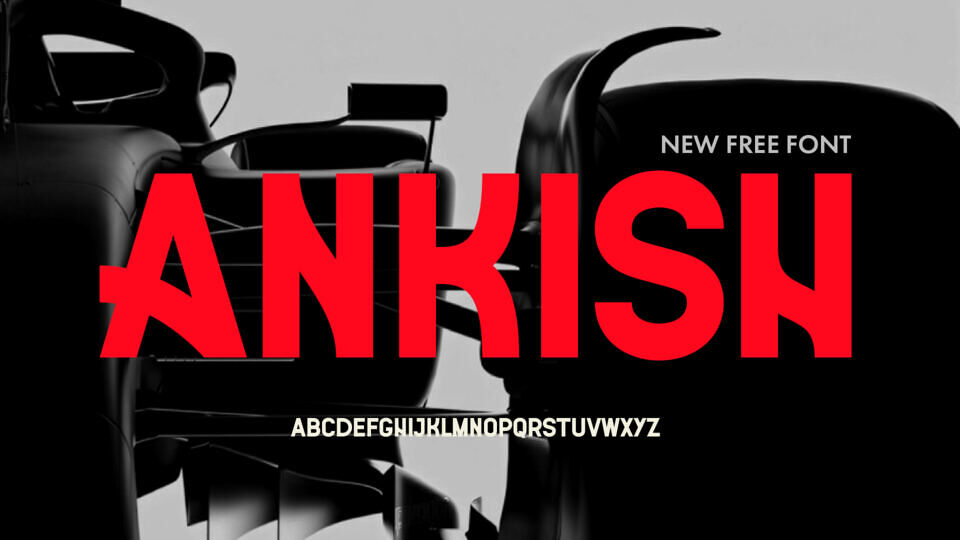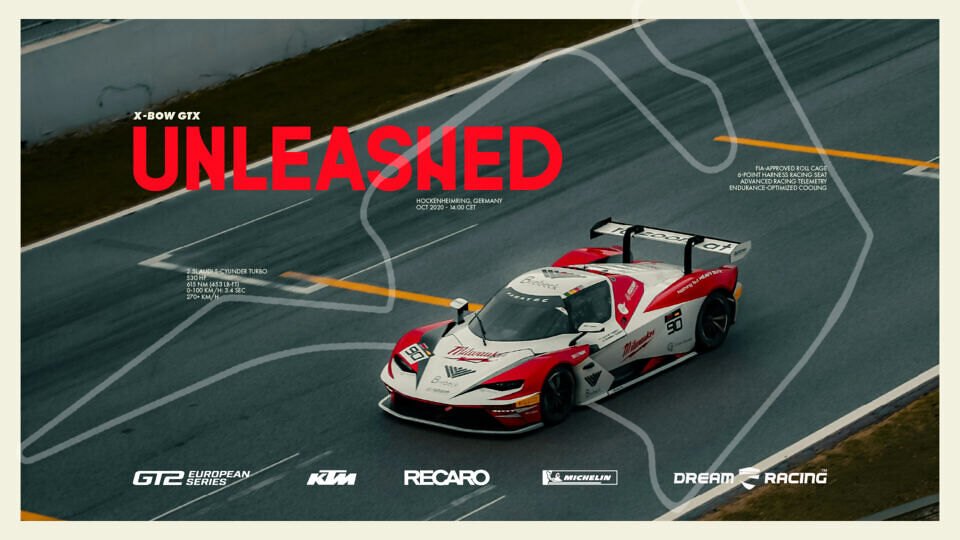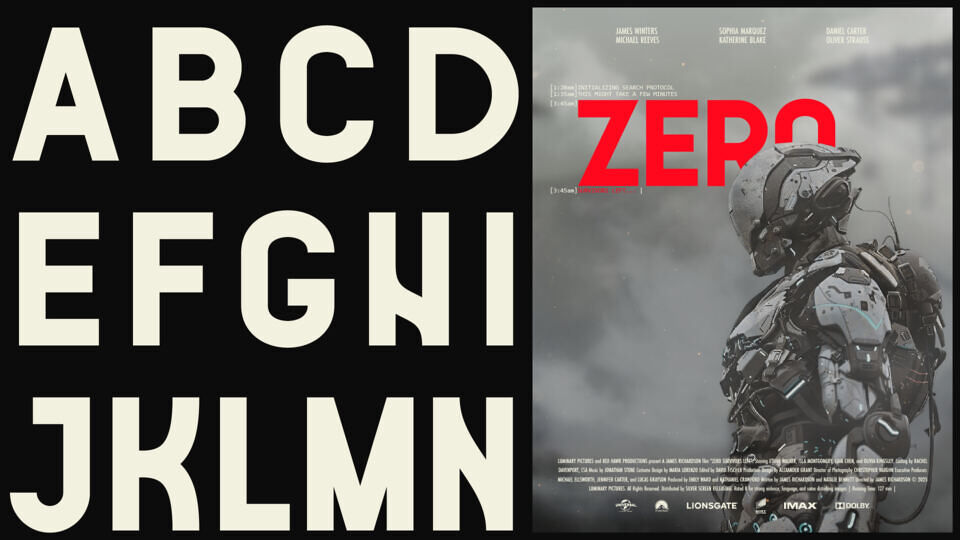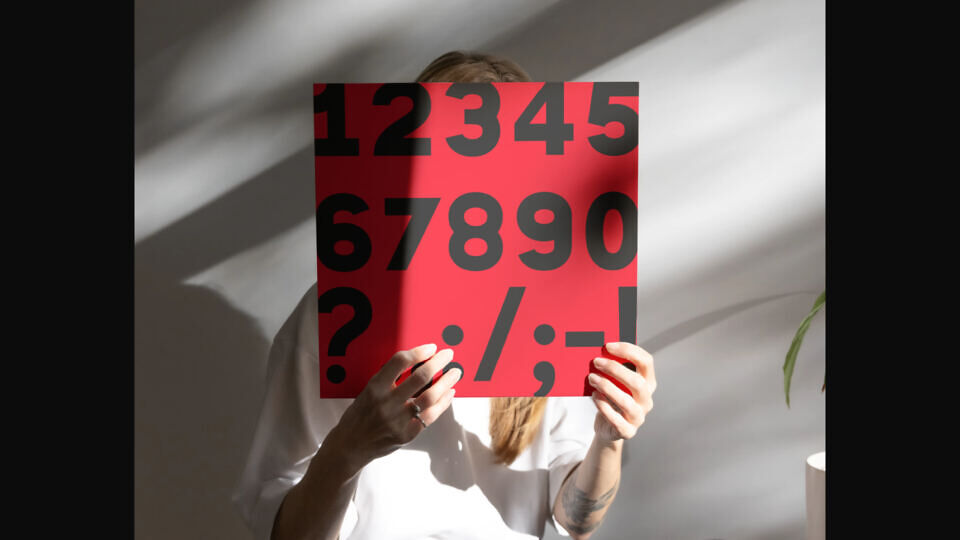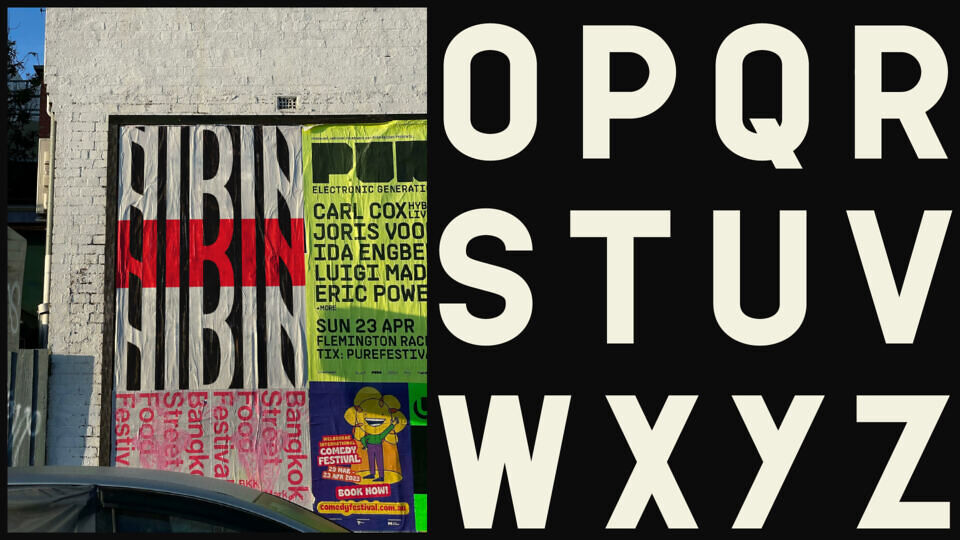
Ankish is a bold, futuristic sans-serif trusted by creative agencies and independent designers worldwide. Its brutalist geometry, softened by subtle curves, delivers impact without losing approachability.
Ankish thrives in film titles, urban posters, editorial headlines, and forward-thinking brand systems. It’s a typeface for designers who want their work to speak with confidence and precision.